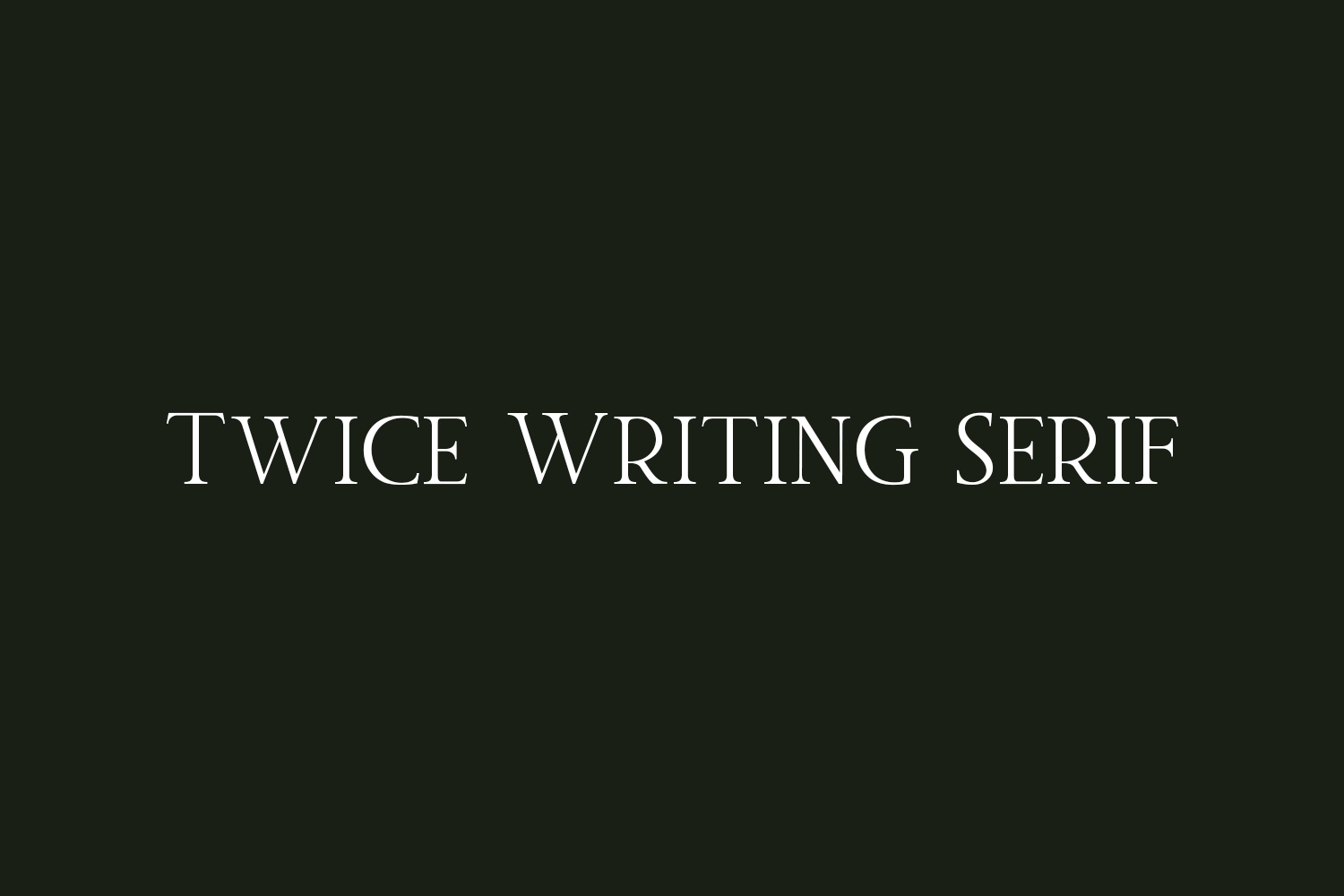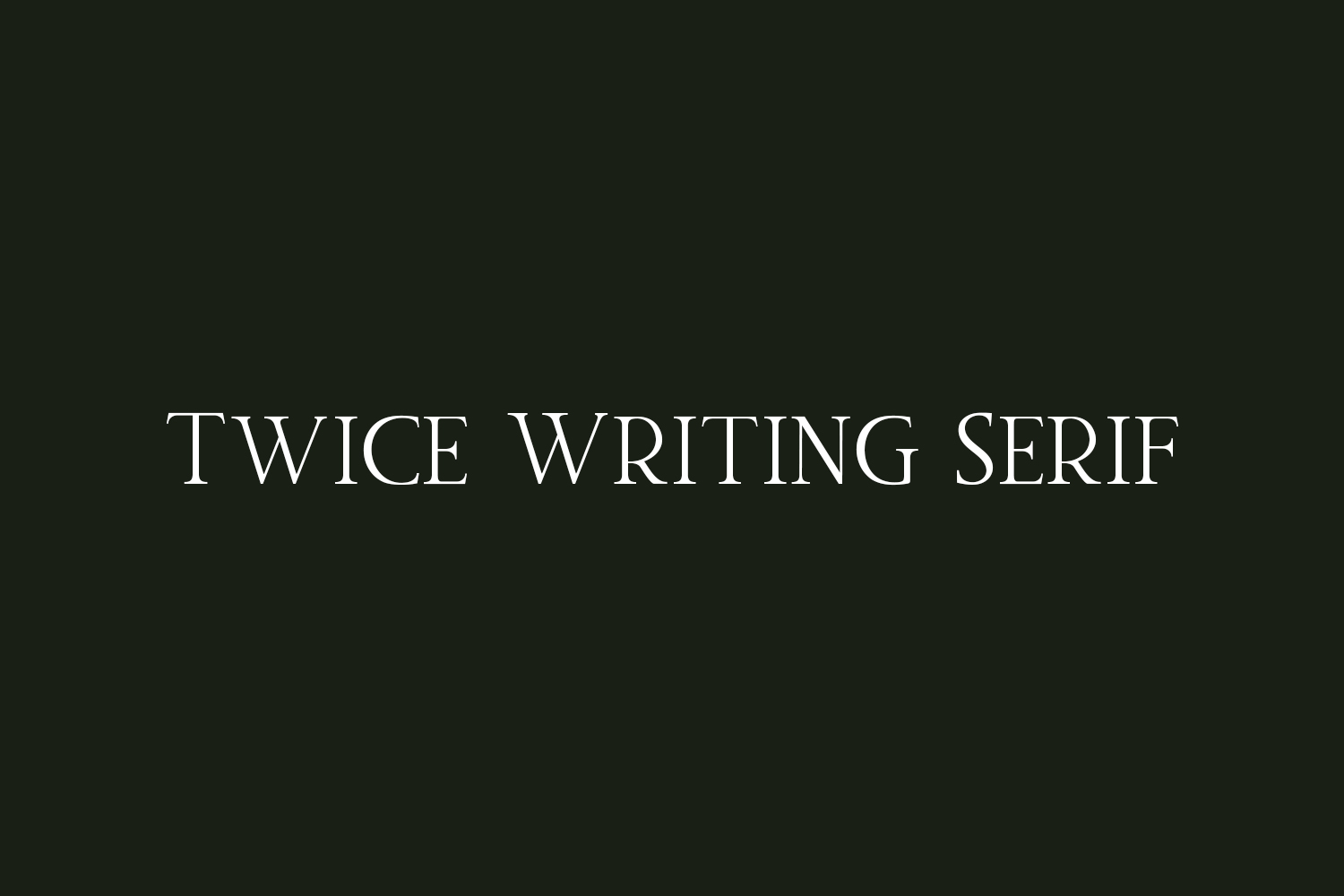
Introducing Twice Writing Free Font, a delightful duo font featuring a blend of script brush and serif styles. Enhance your design game with this exceptional typeface, perfectly suited for posters, logos, magazines, book covers, banners, and much more. Embrace this font’s versatility and witness how it effortlessly enhances an extensive array of projects. Twice Writing Free Font is free for personal use only. Please purchase the full version for commercial use.